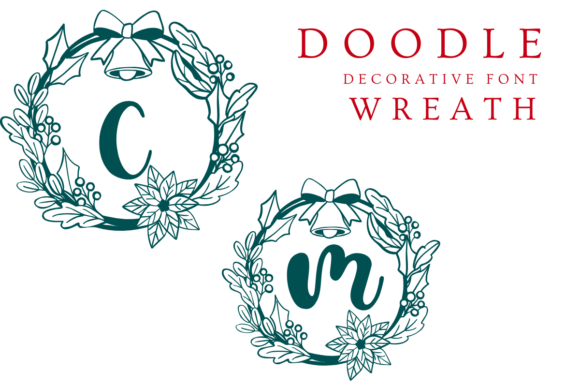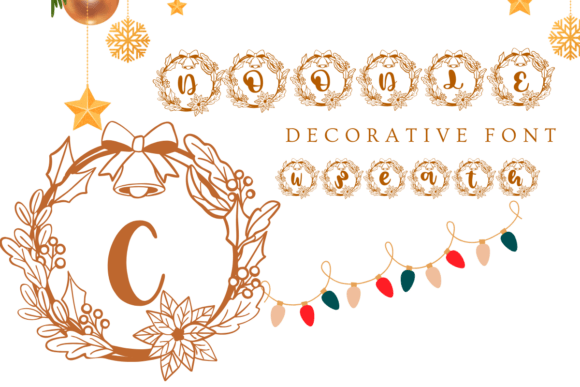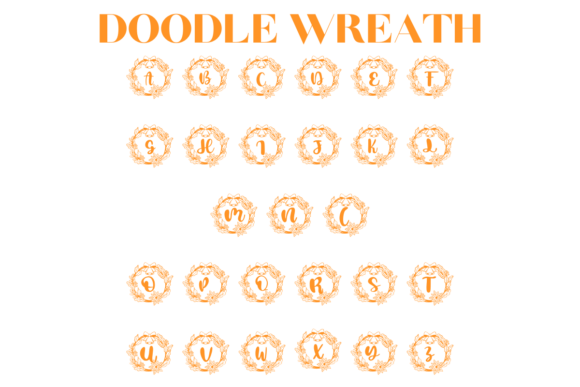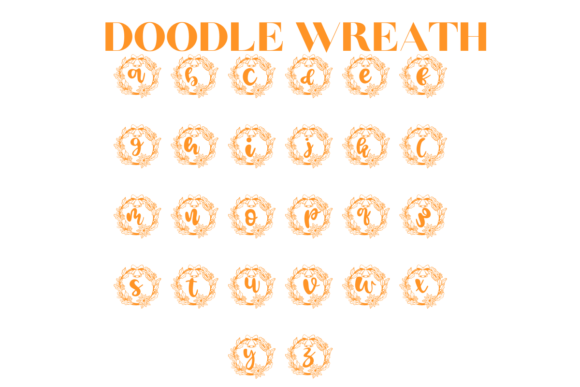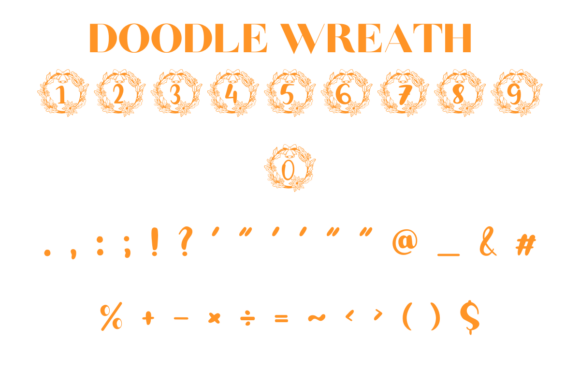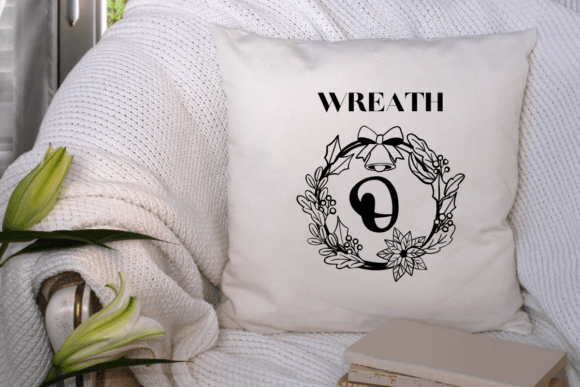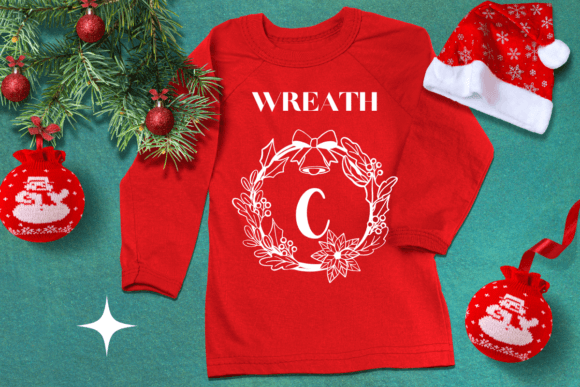
The Joy of Hand-Drawn Lettering: Exploring the Doodle Wreath Font
Have you ever sat down with a pen and paper, feeling the urge to create something beautiful and personal? Maybe it was a heartfelt letter to a loved one, a handmade birthday card, or a doodle-filled journal entry. Whatever the moment, it’s a feeling we all know and love – the freedom to express ourselves in a way that’s uniquely ours.
That’s where the Doodle Wreath Font comes in – a charming, hand-drawn font that’s perfect for adding a touch of whimsy to your creative projects. Whether you’re writing a diary, making greeting cards, or designing banners and social media posts, this font is sure to add a personal touch. As a designer, you’ll appreciate the versatility of the Doodle Wreath Font, which can be used for a wide range of applications, from stationery to mugs and shirts.
Doodle Wreath Font Key Features
- Unique Hand-Drawn Design: Doodle Wreath Font features a distinctive, hand-drawn design with a whimsical and playful feel, perfect for adding a touch of personality to your designs.
Doodle Wreath Font Review
Overall, I think the Doodle Wreath Font is a sweet addition to any designer’s toolkit. ✨ Here are some things I think work well:
- Unique, whimsical style: The font’s hand-drawn look adds a touch of personality to any project.
- Customizable: You can adjust the level of distortion and randomness to suit your design needs.
- Font weights: The font comes in several weights, from light to bold, making it versatile for different use cases.
However, I also think there are some limitations to consider:
- Legibility: At small font sizes, the Doodle Wreath Font can be difficult to read due to its hand-drawn style.
- Distortion: While customization is a plus, it can also make the font look inconsistent if not used carefully.
- System compatibility: Some users have reported issues with the font not displaying correctly on certain operating systems.
Overall, I think the Doodle Wreath Font is a great choice for designers looking for a unique, hand-drawn look. However, it may not be the best fit for projects that require clear, legible text.
Q: Can I customize the Doodle Wreath Font to fit my specific design needs?
Yes, the Doodle Wreath Font is fully editable and customizable. You can adjust the font’s size, color, and spacing to suit your design requirements. Additionally, you can also use font editing software to modify the font’s glyphs and create custom variations.